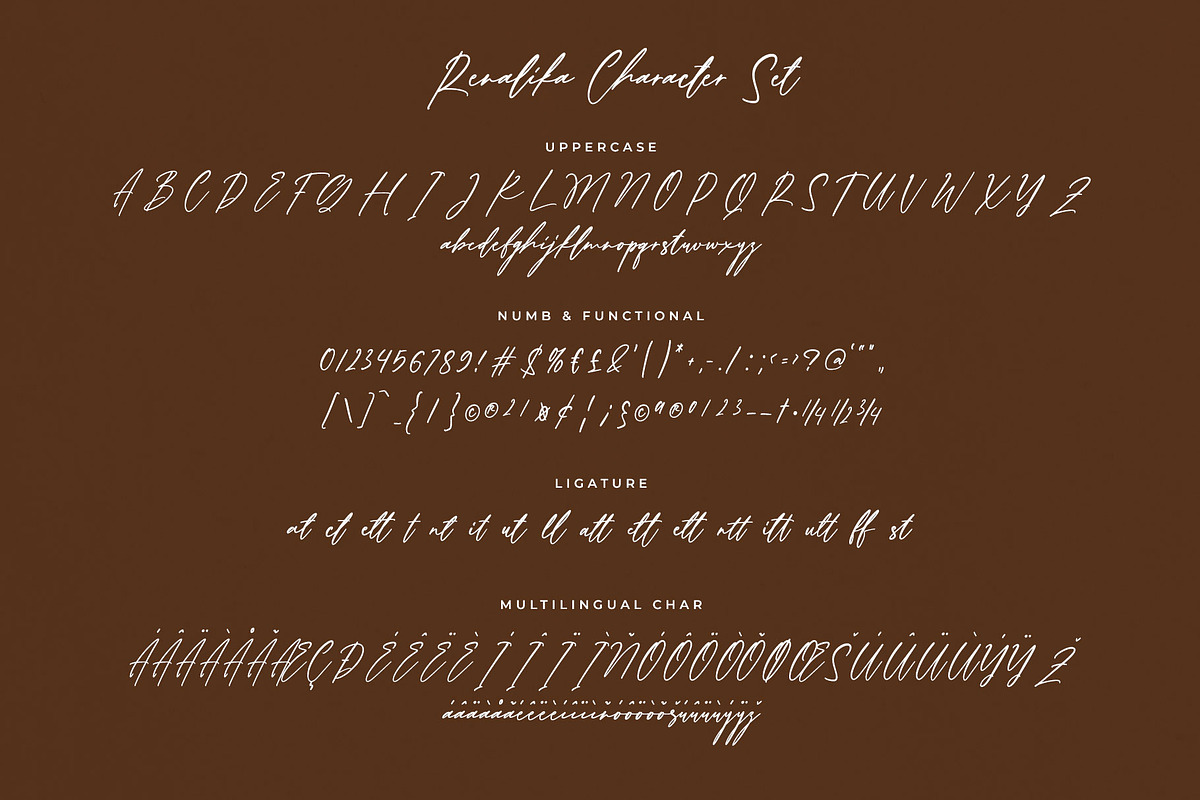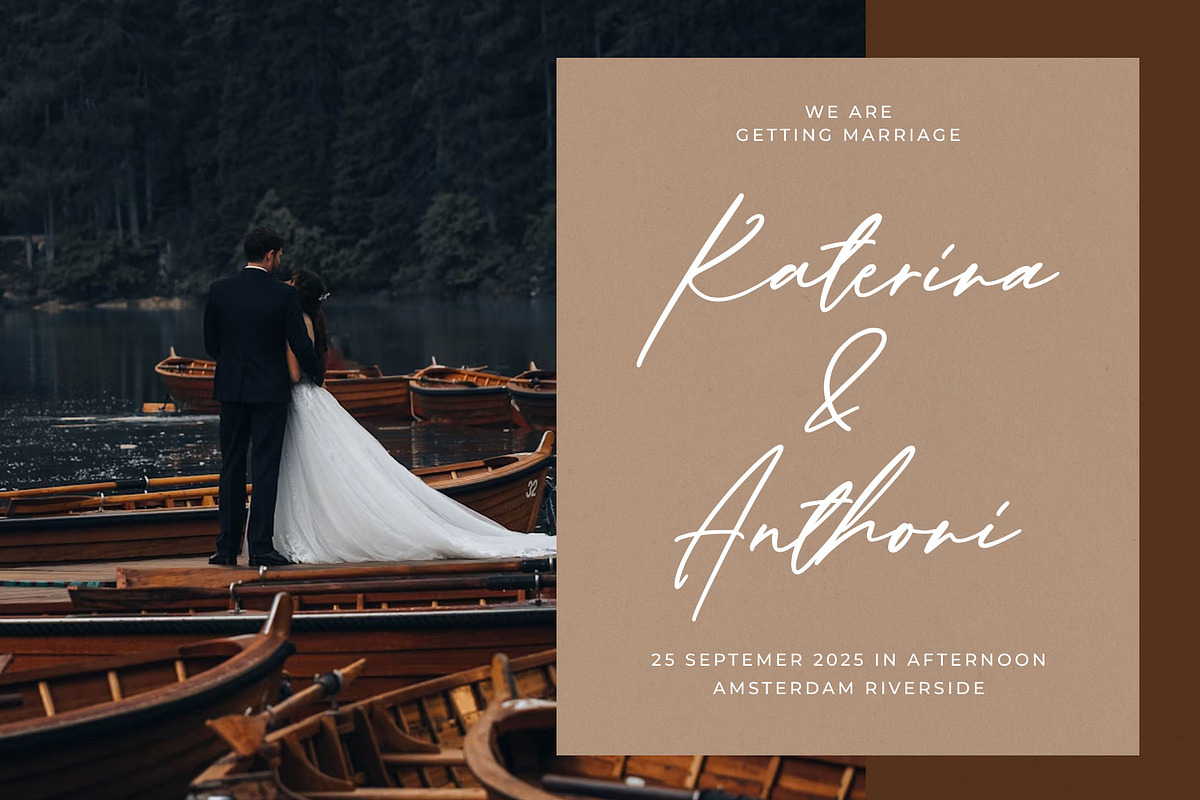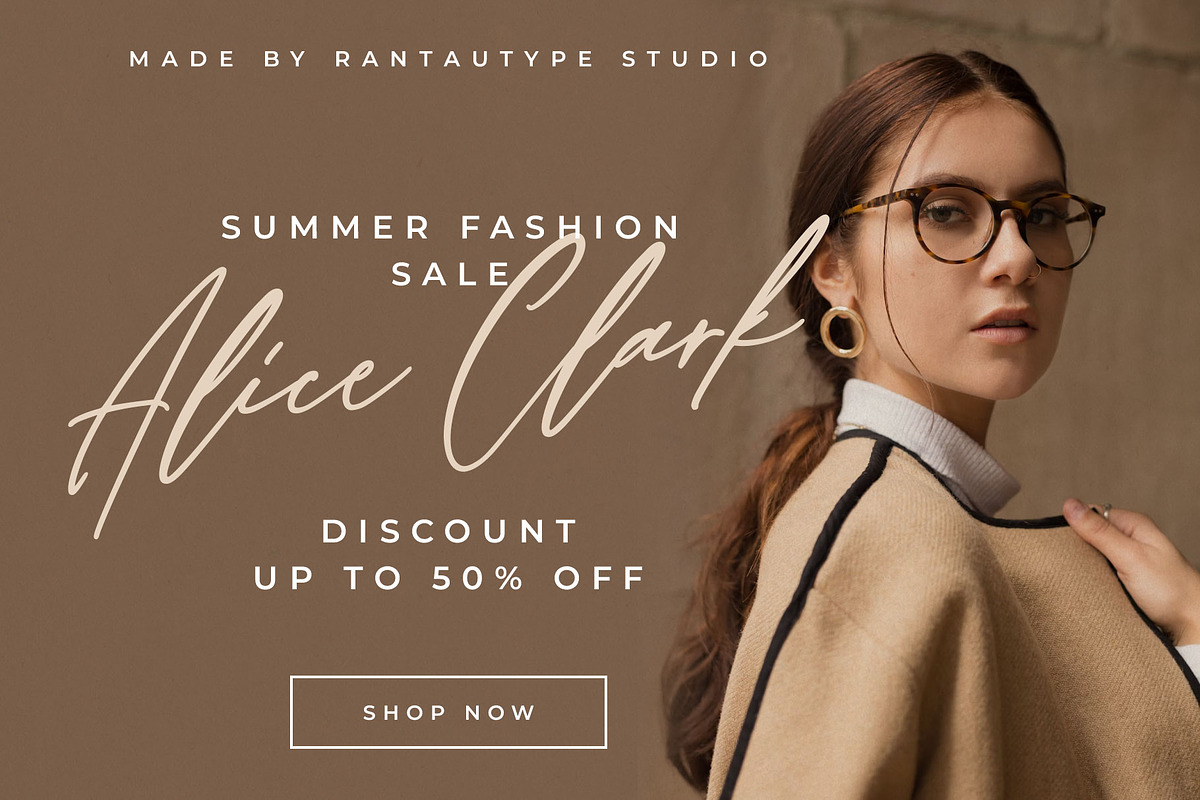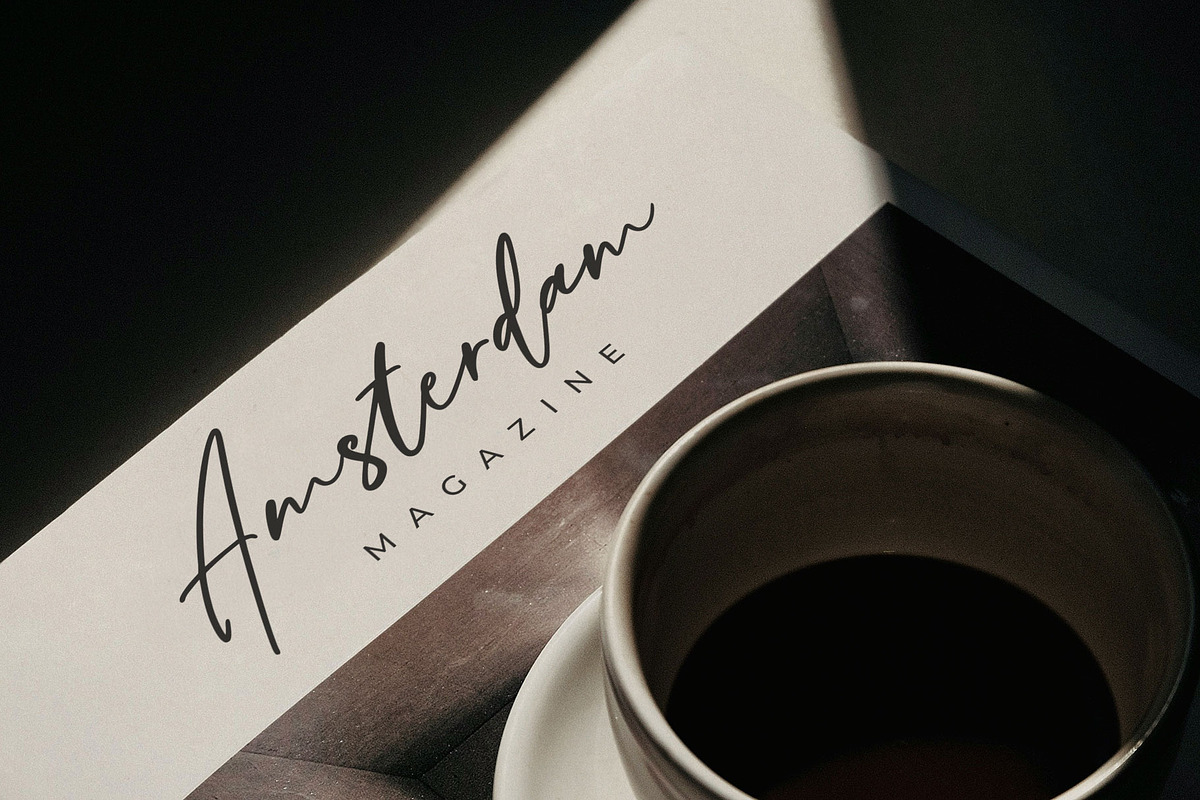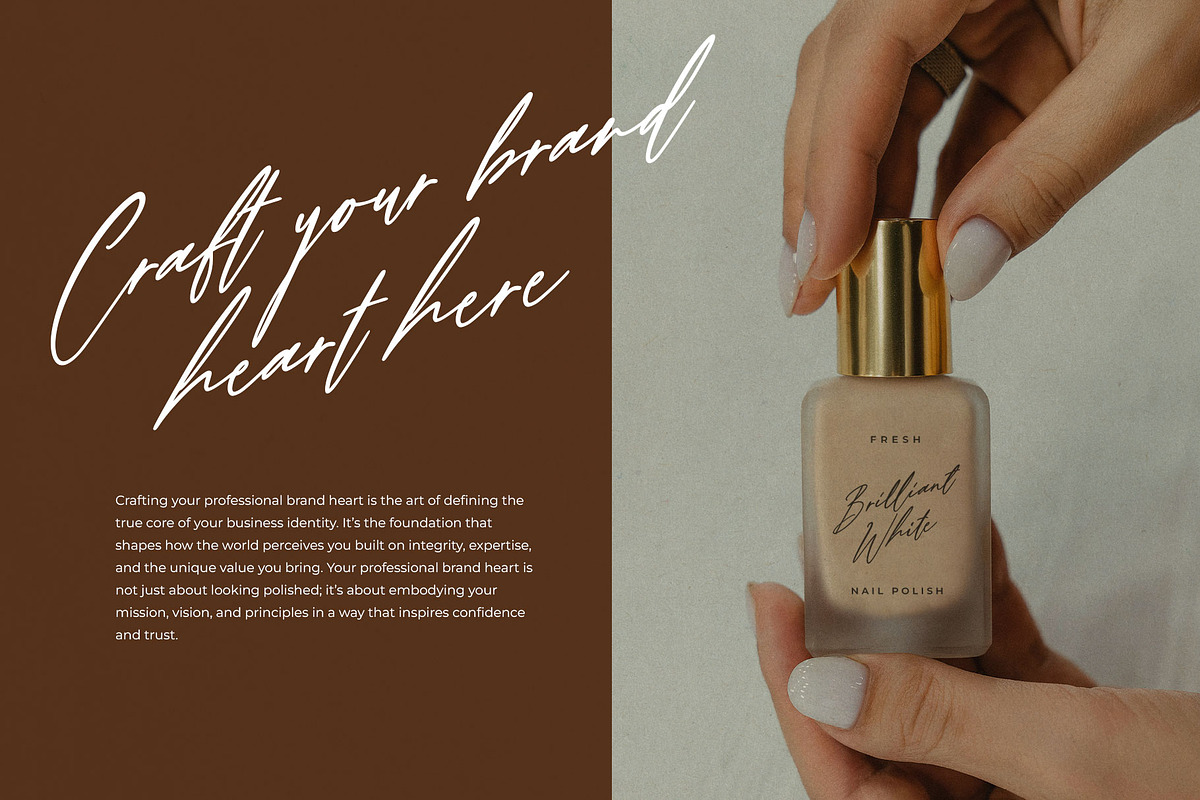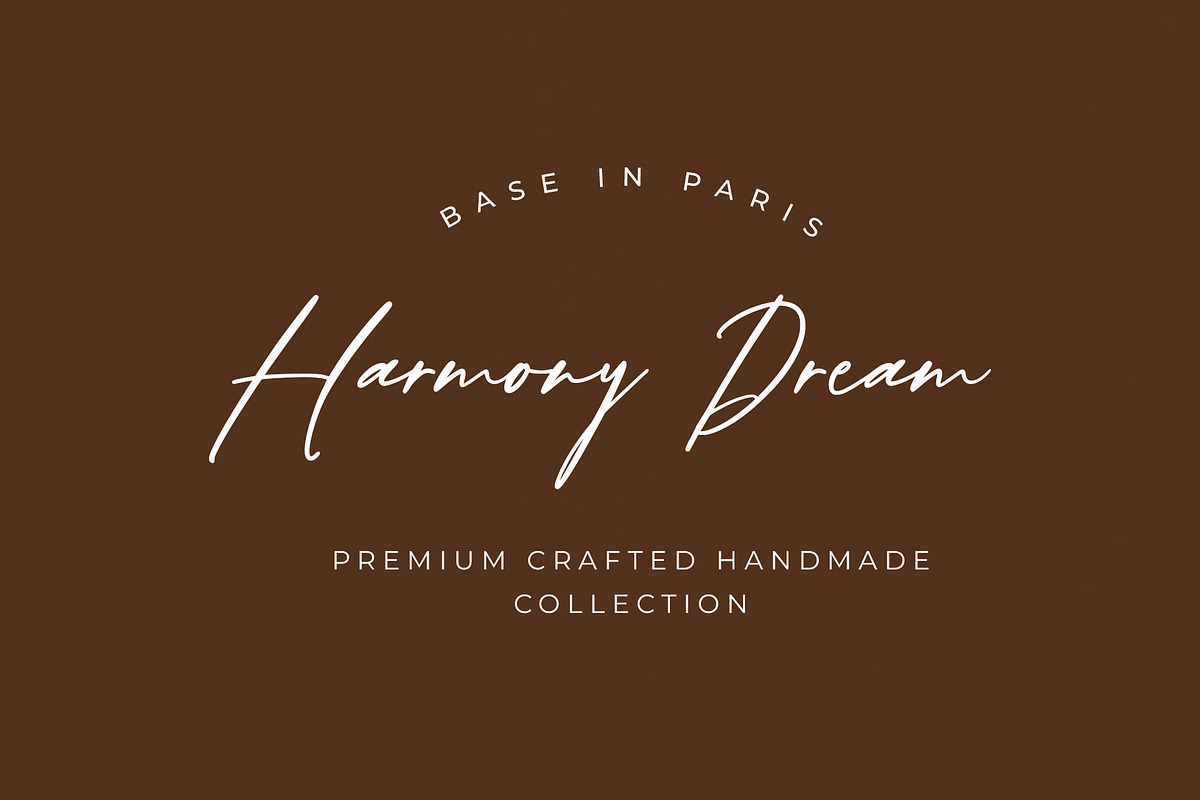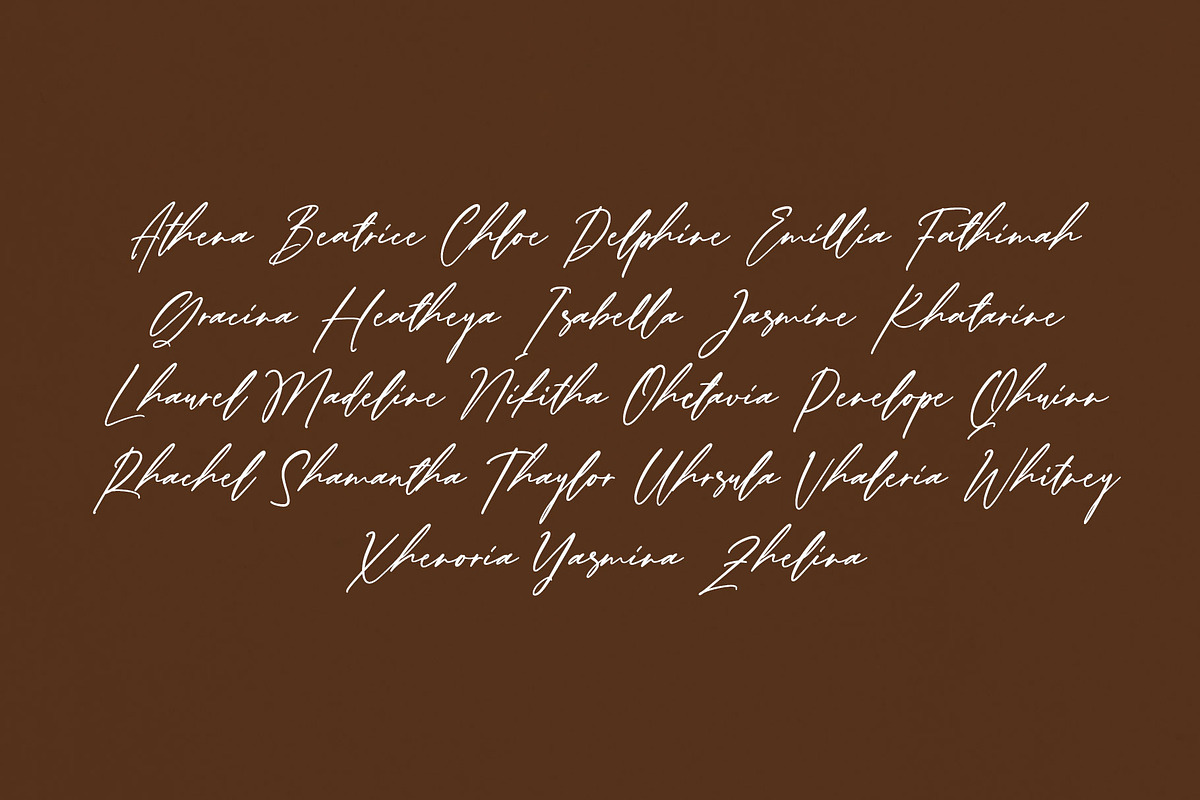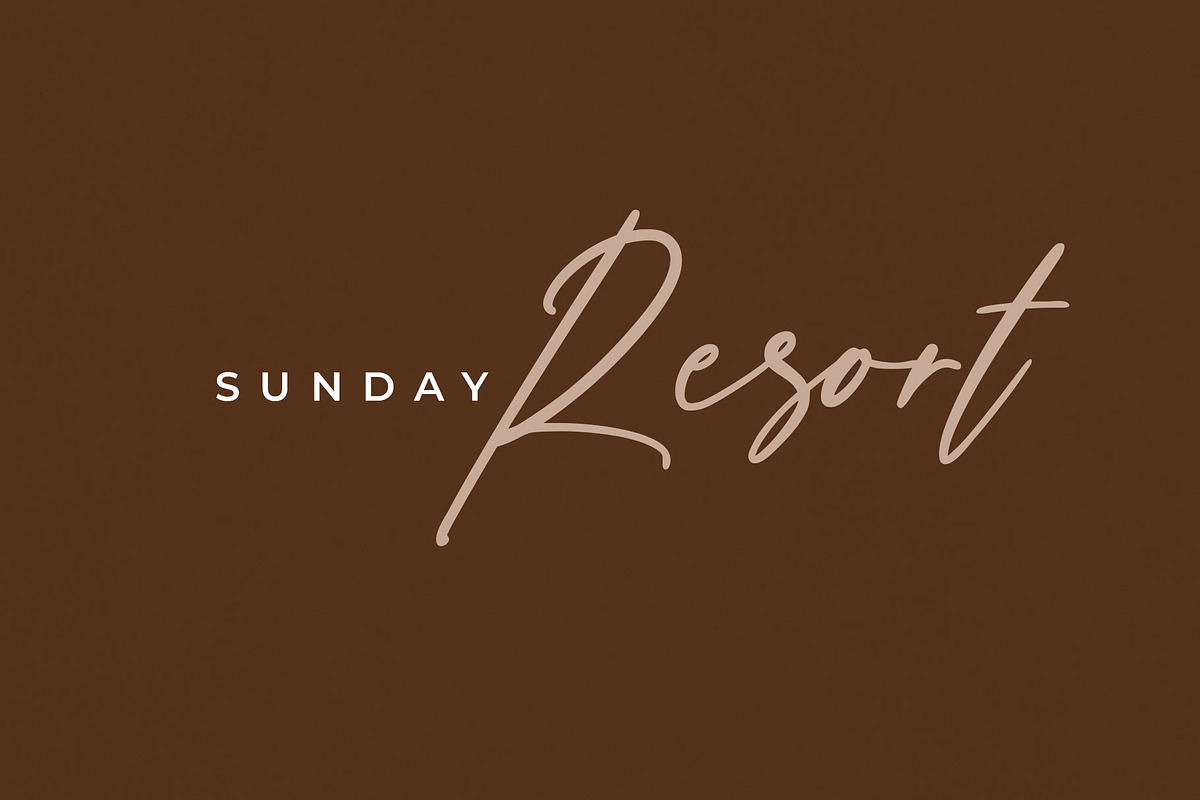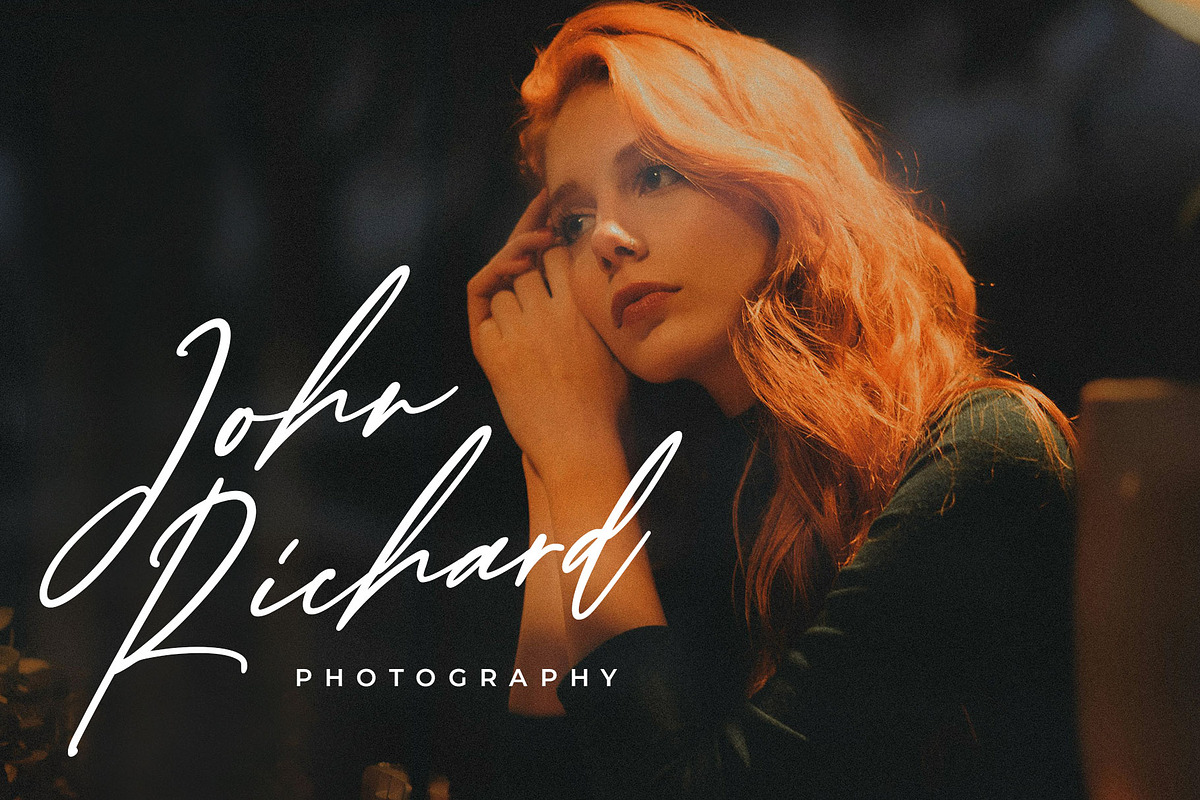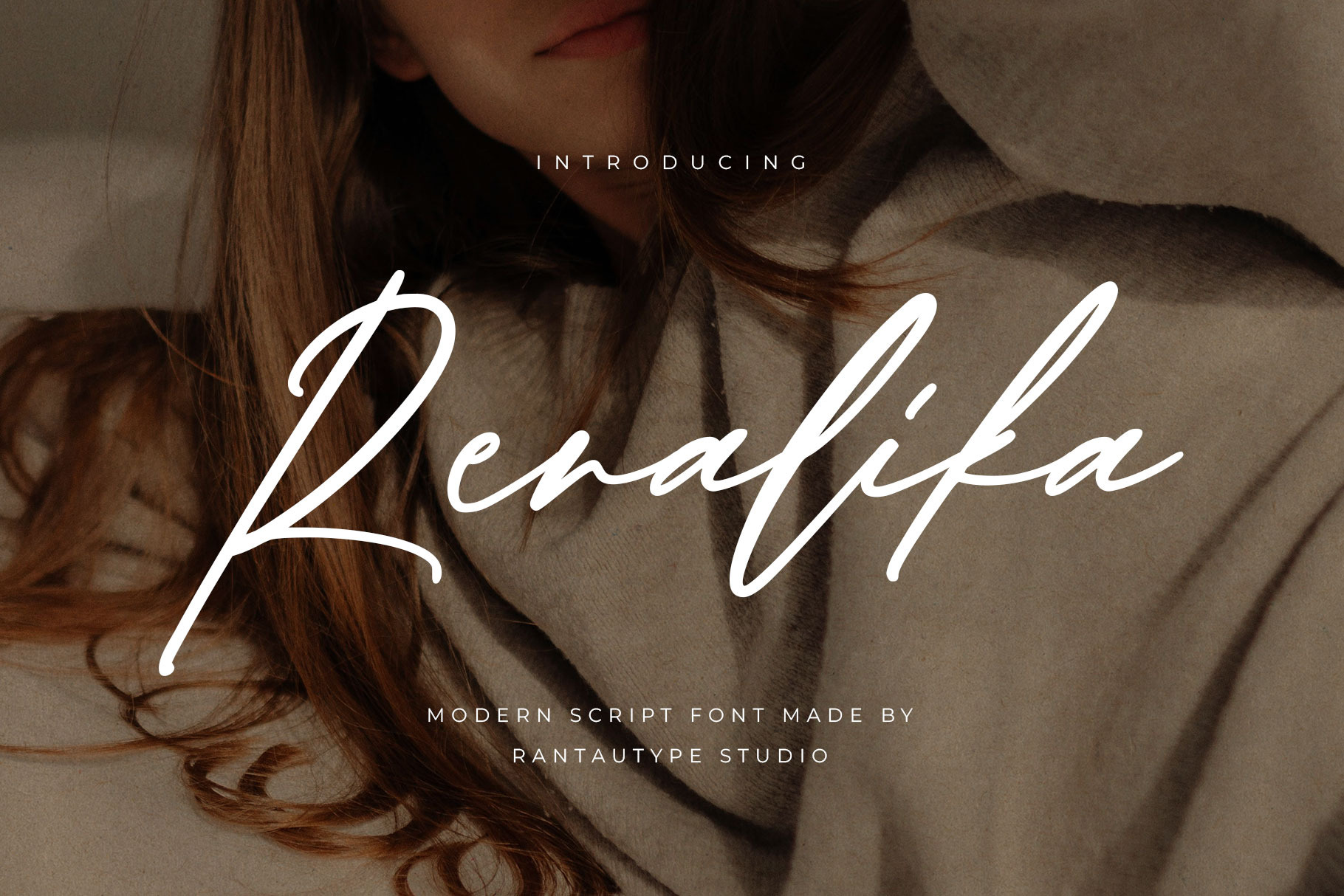
Renalika Modern Script Font
Raciya is modern serif font made by rantautype studio. Raciya is a perfectly choice for any creative endeavor, chic, lifestyle design such as logotype, advertisements, watermark on photography, stationery, branding project, display and magazine, invitation, corporate brand, product design, label, business project and many other project with retro touch.
- Alternate and ligature